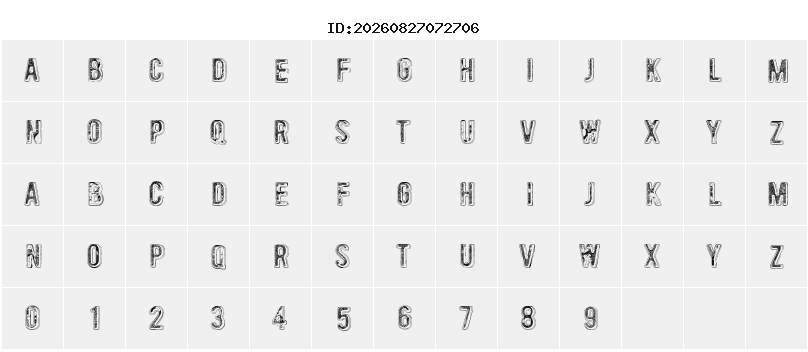
About 49 birthdays.ttf
49 birthdays.ttf is a modern, elegant sans-serif font designed for ultimate readability and visual harmony. Perfect for branding, headlines, web design, and print materials.